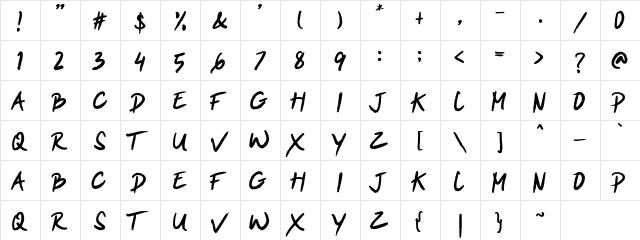
Winkdeep Two Regular
Design Context for Winkdeep Two Typeface
Winkdeep Two is a composed and adaptable typeface that performs quietly and consistently across a wide range of design contexts.